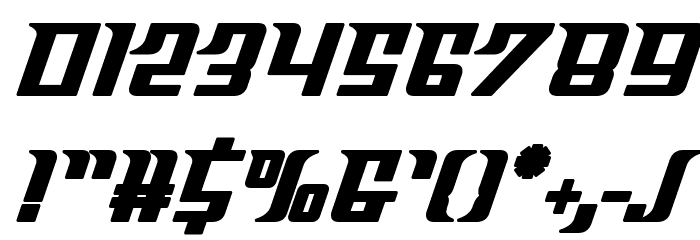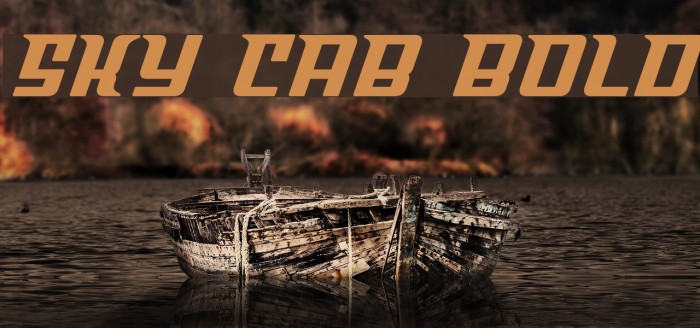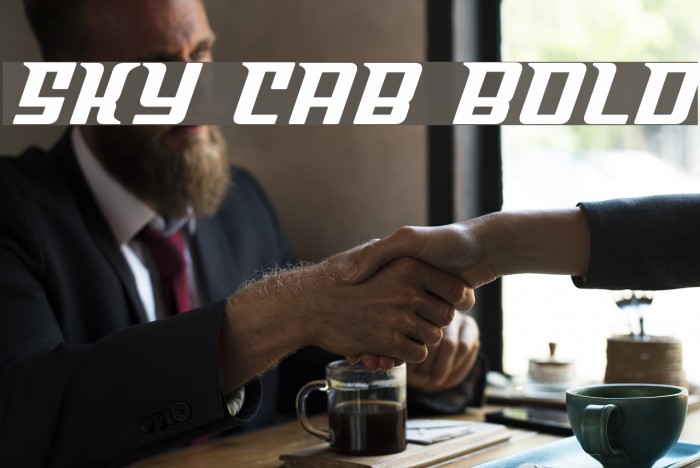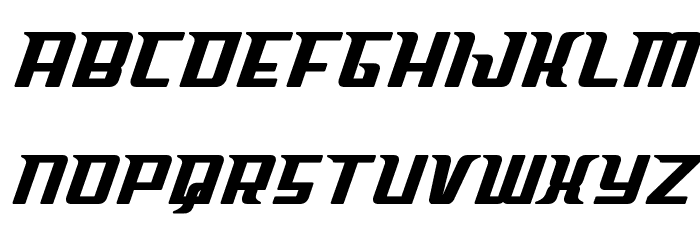
Sky Cab Bold Font
This font features a bold, dynamic style with a strong presence. The characters are designed with sharp angles and a slightly italicized slant, giving them a sense of motion and energy. The strokes are thick and consistent, providing a high contrast that enhances readability. The overall design is modern and edgy, making it suitable for projects that require a bold statement. The numbers and special characters maintain the same stylistic approach, ensuring uniformity across different uses.
A bold, dynamic font with sharp angles and high contrast.
• Proposed Projects: Ideal for sports branding, action movie posters, and dynamic logo designs.
• Category: Decorative/Display
• Bold: Yes
• Italic: Yes
• Weight: Bold
• Width: Normal
• Character Spacing: Normal
• Contrast: High
• Overall Style: Modern
• Use Case: Headlines, Logos